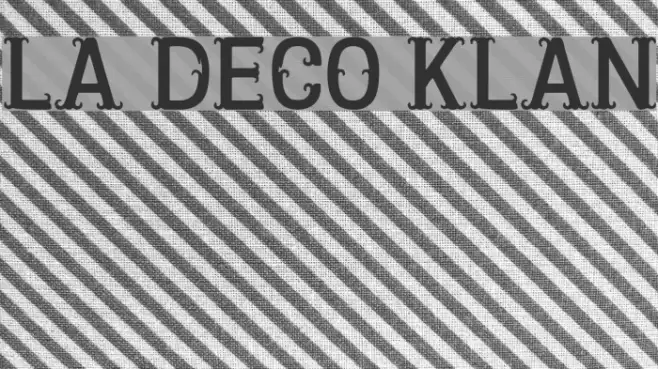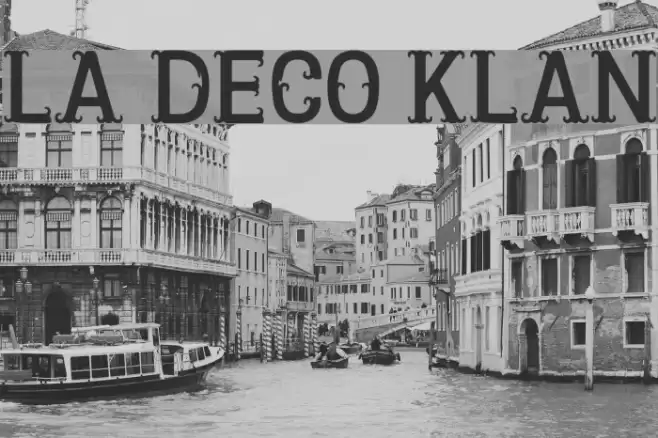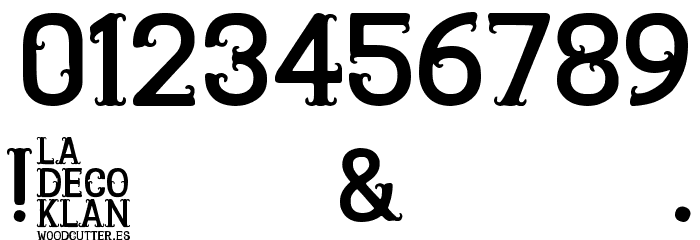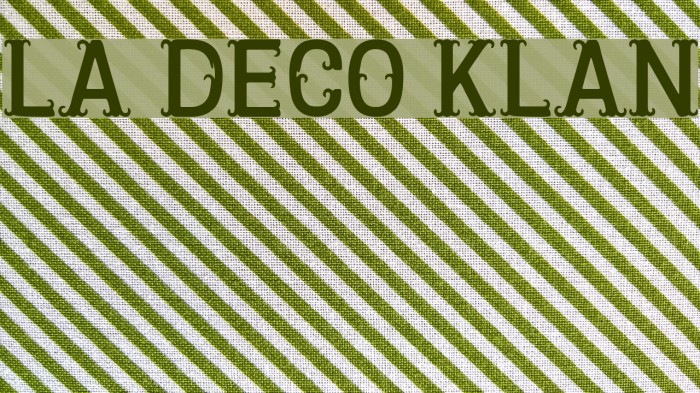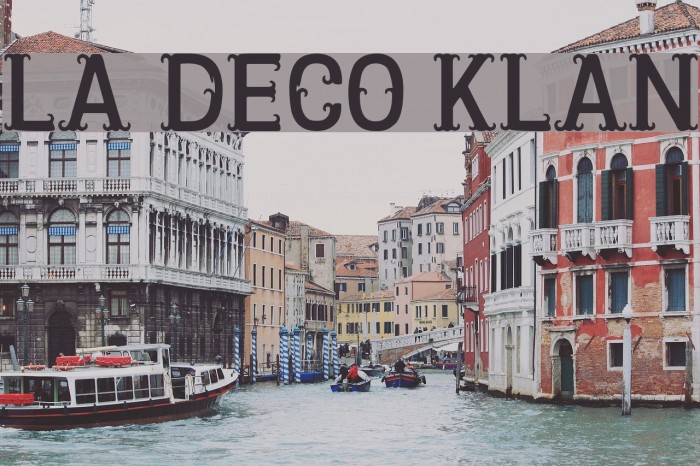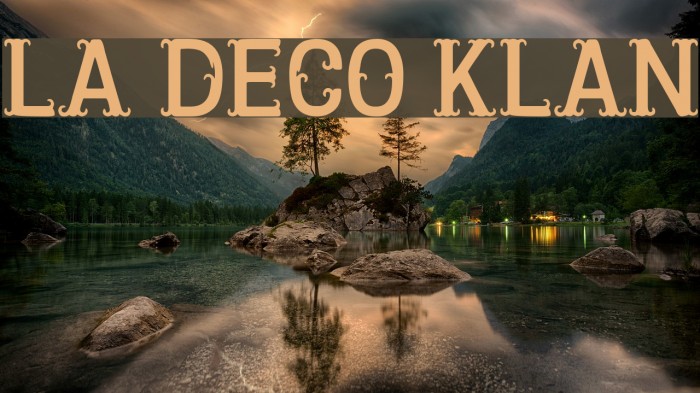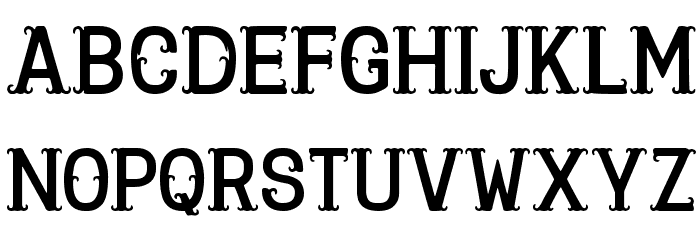
La Deco Klan Font
La Deco Klan Description
This font features a bold and decorative style with distinct serifs that give it a vintage and classic appearance. The characters are well-defined with a slight curvature at the ends, adding a touch of elegance. The uppercase letters are prominent and commanding, while the lowercase letters maintain a consistent style. Numbers are bold and easily readable, making them suitable for various design applications. The special characters, including punctuation marks and symbols, are crafted to match the overall aesthetic, ensuring a cohesive look across all text elements.
A bold, decorative serif font with a vintage flair from Uncategorized fonts.
- Proposed Projects: Ideal for poster designs, branding projects, vintage-themed events, and decorative signage.
- Overall Style: Vintage